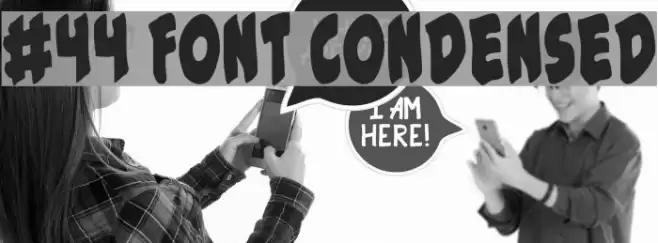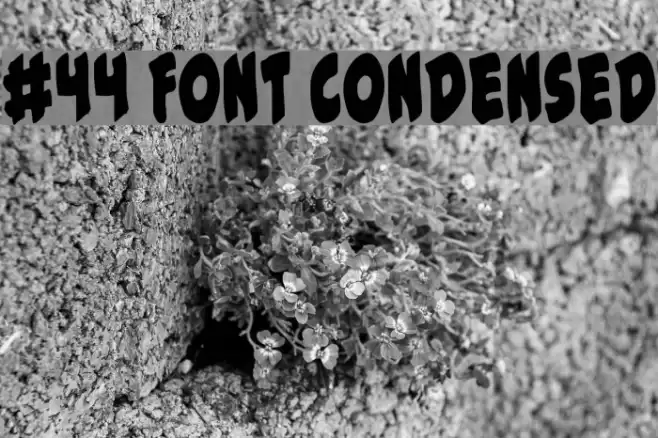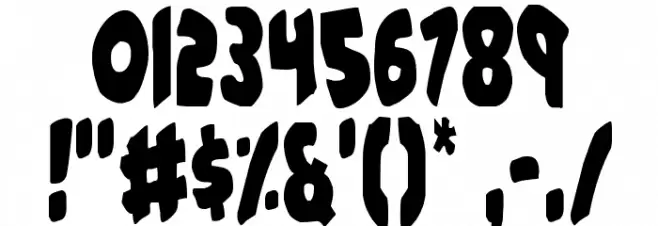
#44 Font Condensed Font
#44 Font Condensed Description
This font features bold, condensed characters with a playful and dynamic appearance. The letters are thick and slightly irregular, giving them a hand-drawn, organic feel. The uppercase and lowercase letters maintain a consistent style, with rounded edges and a strong presence. The numbers and special characters follow the same design principles, ensuring uniformity across all glyphs. This font's unique style makes it stand out, making it suitable for eye-catching designs.
A bold, condensed font with a playful, hand-drawn style from Comic fonts.
- Proposed Projects: Ideal for posters, headlines, branding, and any project requiring a bold, attention-grabbing typeface.
- Overall Style: Playful, Organic
- Use Case: Headlines, Posters, Branding